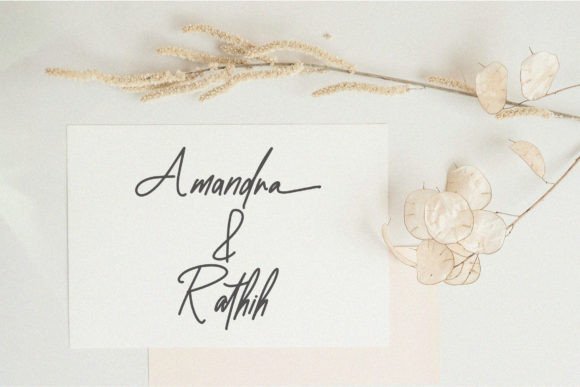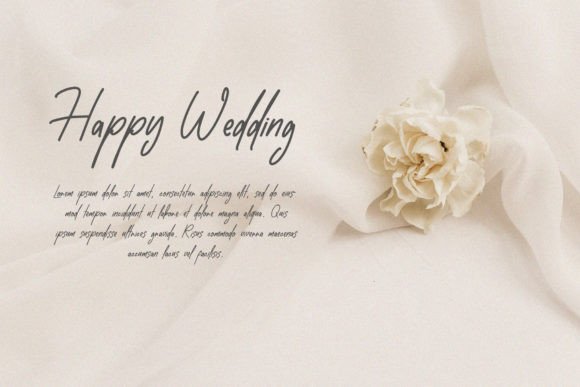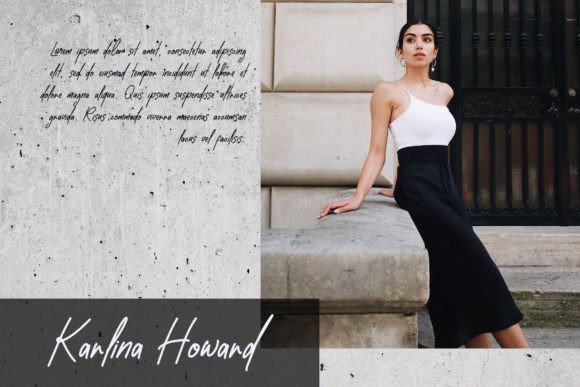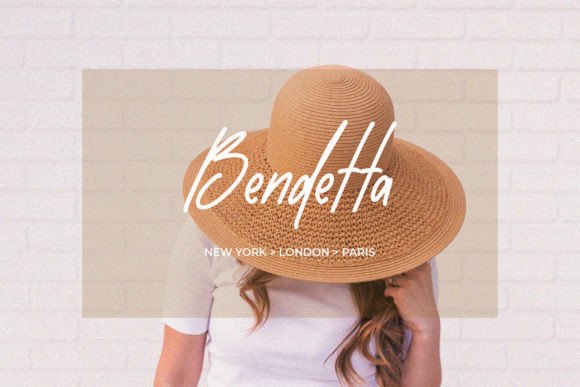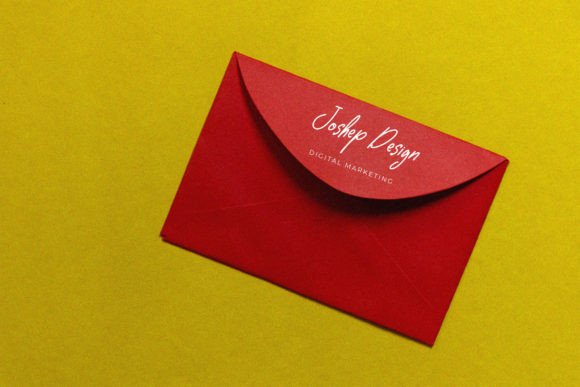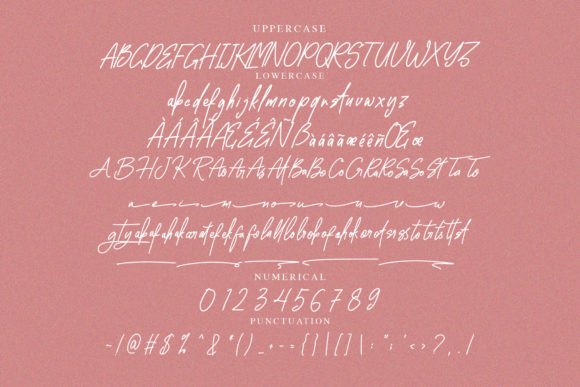
Introduction to Mettaglomie Font
Unearth the understated elegance of Mettaglomie, a handcrafted font boasting a minimalist flair.
Imbued with an array of unique character shapes, Mettaglomie infuses every design project with a captivating charm It holds great potential to enhance the visual appeal of any graphic display, lending it a more engaging allure.
Key Features of Mettaglomie Font